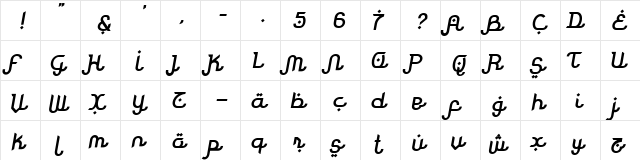
Rodja Bold Slanted Font Preview
Rodja Bold Slanted Rodja Bold Slanted
Rodja Bold Slanted Font Details
| Style | Rodja Bold Slanted |
| Foundry | Mikrojihad |
| Designer | Mikrojihad |
Design Context for Rodja Bold Slanted Typeface
Rodja Bold Slanted is a composed and adaptable typeface that performs quietly and consistently across a wide range of design contexts. The dynamic lean of this cut emphasises speed and emphasis in any layout. The heavy weight commands attention and anchors typographic hierarchies.
Pro Tip: Use Rodja Bold Slanted for emphasis, pull quotes, and subheadings where its slanted energy can add rhythm to the layout.